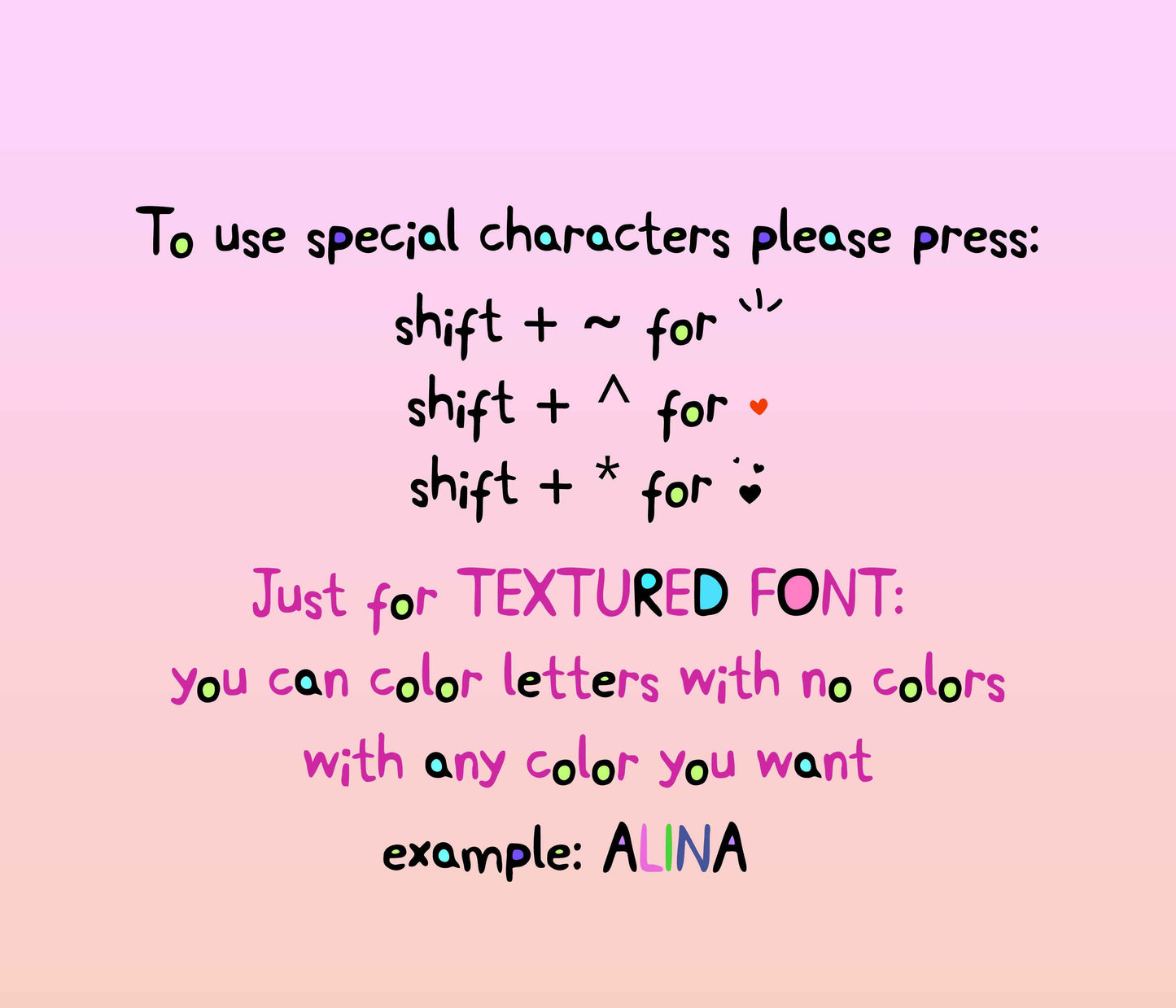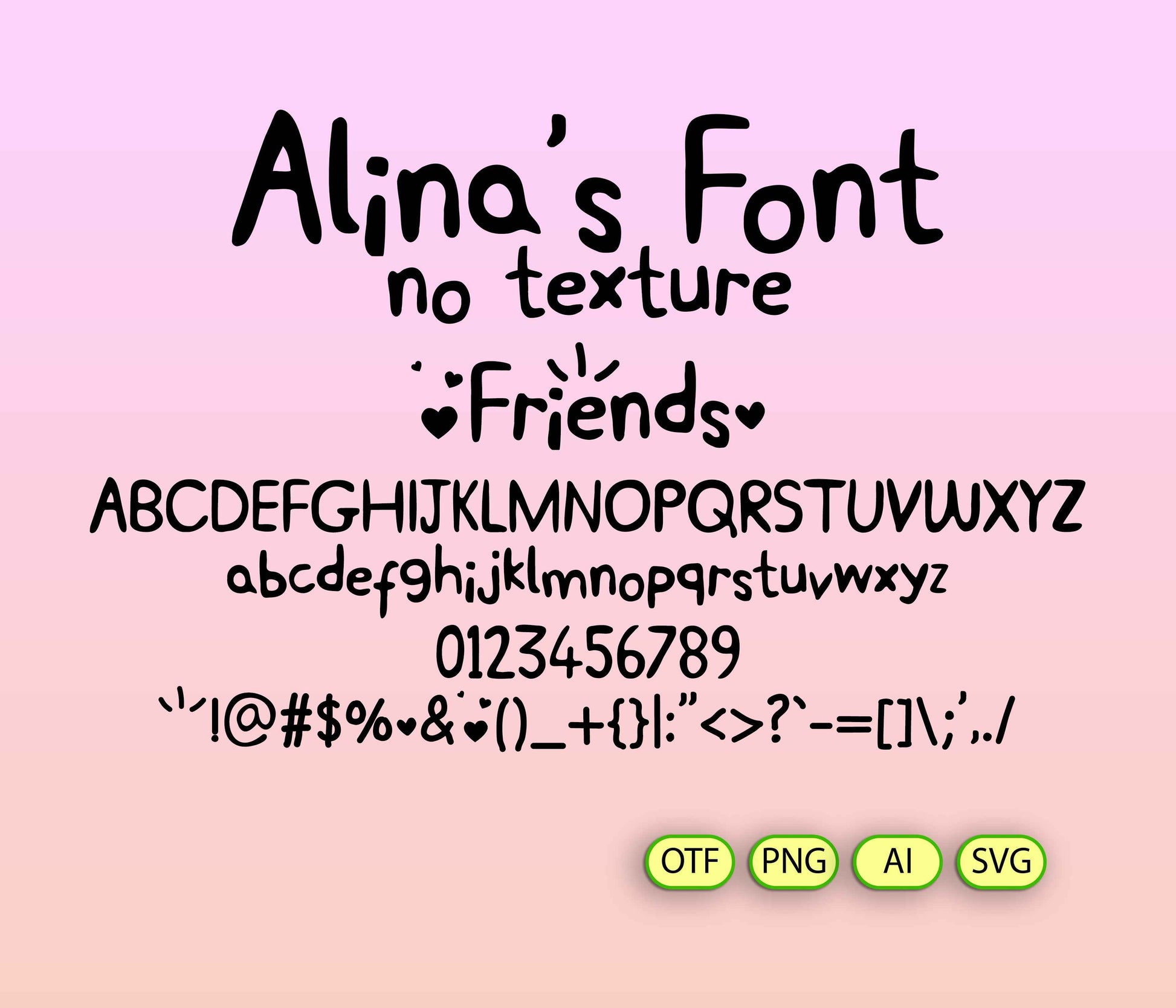
Magical Friends Font
Step into the world of enchanting companionship with our Magical Friends font, capturing the essence of beloved friendship stories and heartwarming adventures. Perfect for card makers, gift designers, party planners, and digital creators, this clean-lined font brings the whimsical, joyful spirit of magical bonds to your projects. Create delightful greetings, themed decorations, or digital content with the playful energy of friendship magic.
Our Magical Friends font features smooth, playful lines and charming characters in a clean style that reflects the wonder of friendship adventures. Ideal for:
- Party Supplies: Design crisp, professional invitations, banners, and decorations for friendship celebrations.
- Gift Creation: Perfect for clear, elegant friendship bracelets tags, bestie gift labels, and special occasion cards.
- Digital Content: Create sharp, professional social media posts, e-cards, and digital memories with pristine typography.
- Craft Projects: Ideal for clean-cut vinyl projects, precise die-cutting, and professional-looking friendship keepsakes.
- Commercial Design: Perfect for high-quality friendship-themed merchandise, professional promotional materials, or any project requiring that special touch of magical companionship.
Our font pays tribute to the magic of friendship, empowering your designs with its refined and playful spirit. Whether crafting bestie messages, designing celebratory merchandise, or adding a magical element to special projects, this clean-lined font communicates the enchanting essence of friendship with professional precision. Ready to create something special for your magical friends? This non-textured font is your key to polished, impactful design.